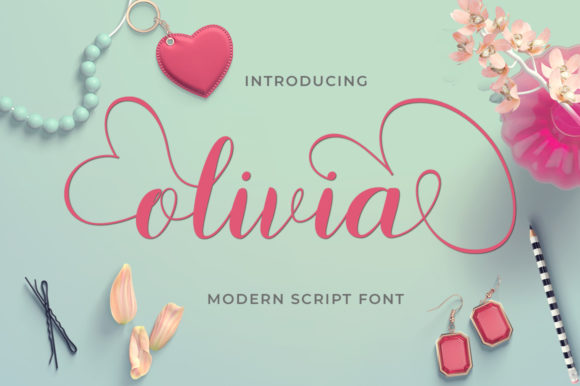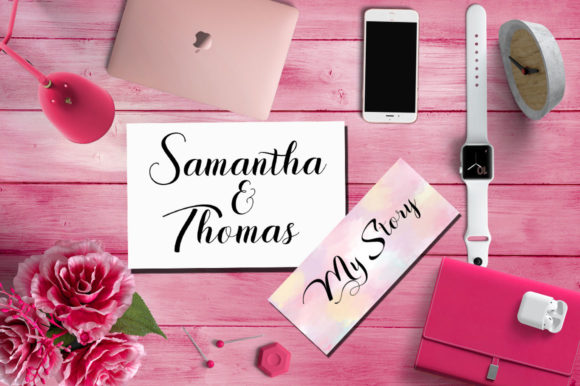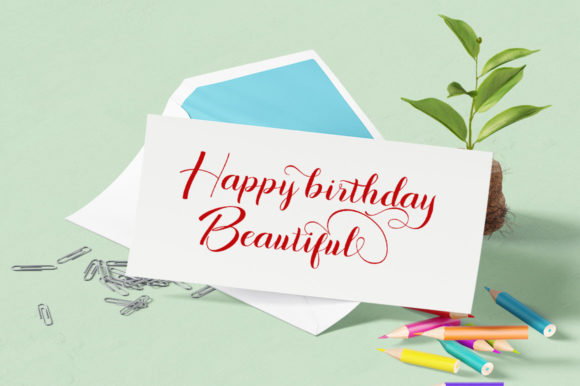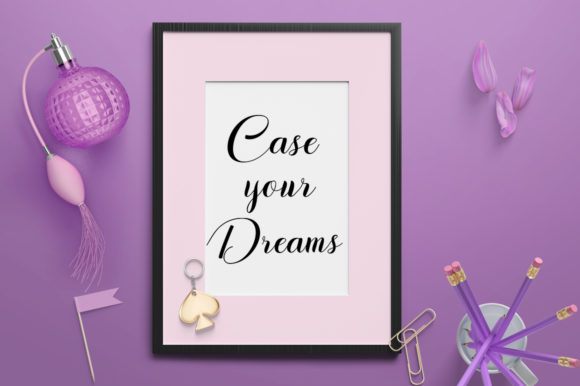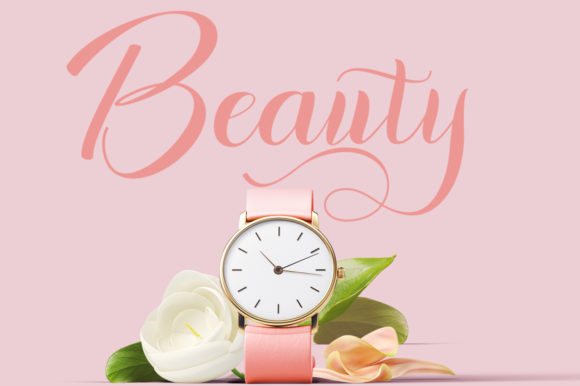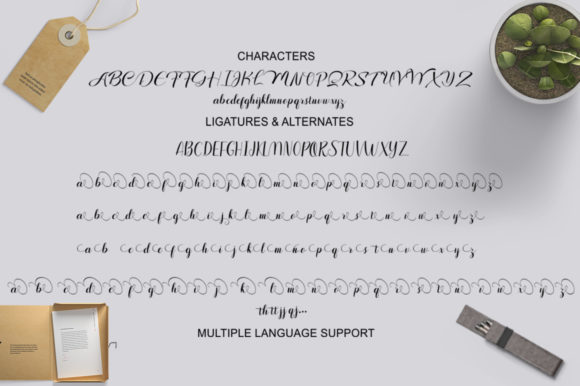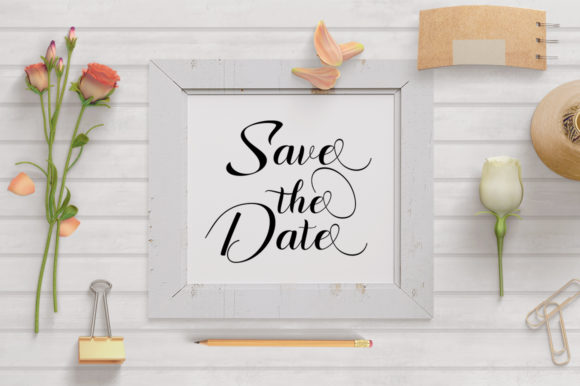
HomeScript FontsOlivia Font Script Fonts Olivia Font FacebookXPinterestWhatsApp Olivia Font Poster 2 Olivia Font Poster 3 Olivia Font Poster 4 Olivia Font Poster 5 Olivia Font Poster 6 Olivia Font Poster 7 Olivia Font Poster 8 About Olivia Font Olivia is a modern script font with an irregular baseline. Get inspired by its romantic and delicate swashes! DOWNLOAD ON CREATIVE FABRICAThis font is sold and delivered by Creative Fabrica. Font Canyon may earn a commission if you buy through this link. People also explored Pennyroyal Pro Vallenia Love Font Color Robota Font Cherish Today Font Black Font Ride Night Font Christian Font Marlina Melvin Font 286 0 TagsOlivia Font Previous articleSkilled FontNext articleRedlineryh Font LEAVE A REPLY Cancel reply Comment: Please enter your comment! Name:* Please enter your name here Email:* You have entered an incorrect email address! Please enter your email address here Website: Save my name, email, and website in this browser for the next time I comment. Personal Use Free BD RatterBit Personal Use Free Read more about this font Capellen Personal Use Free Read more about this font Old Linoleum Personal Use Free Read more about this font Evensong Hollow Personal Use Free Read more about this font BLOG Elegant Wedding Invitation Fonts – Handwritten & Script Fonts Elegant Wedding Invitation Fonts Your wedding day is one of the most important moments of your life, and every detail matters—including your invitation design. Our... Top 10 Handwritten Fonts That Elevate Your Designs To increase your work productivity, choose the most readable fonts. 5 Fonts That Will Dominate Design Trends in 2026